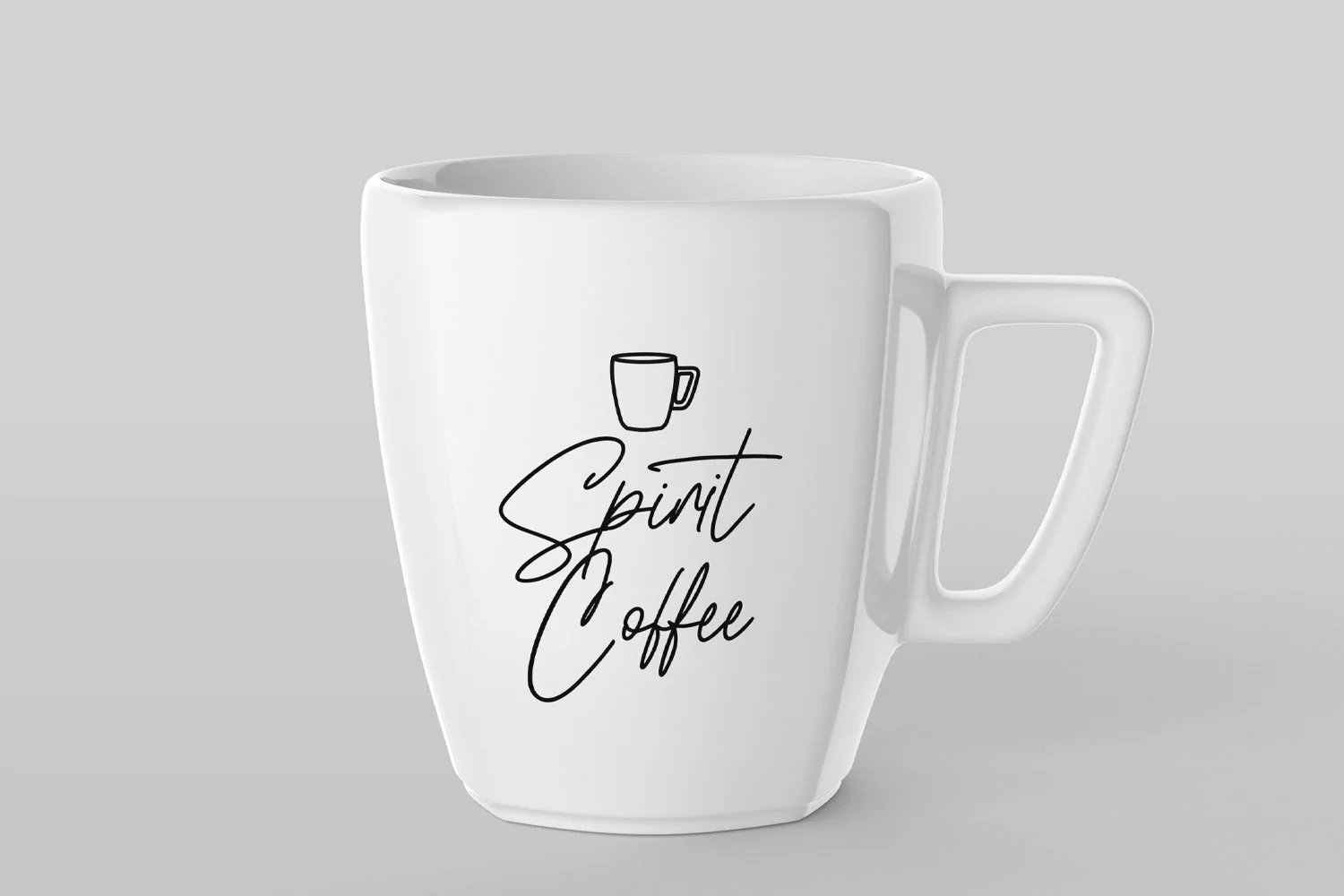
Ironhartley is a Casual script font. With bold mono-line stroke, slant and fun character with a bit of ligatures. To give you an extra creative work. Ironhartley font support multilingual more than 100+ language. This font is good for logo design, Social media, Movie Titles, Books Titles, a short text even a long text letter and good for your secondary text font with sans or serif. Make a stunning work with Ironhartley font.